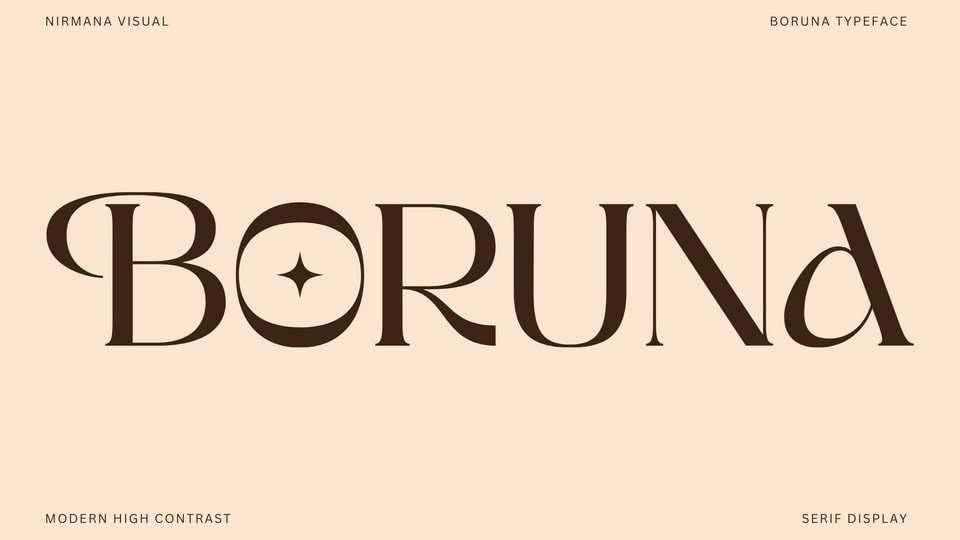
Download Boruna font, a modern serif typeface that offers beautiful typographic harmony. Boruna is perfect for a diversity of design projects including logos and branding, social media posts, advertisements and product designs.